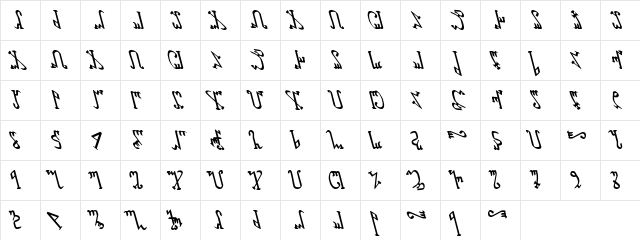
Wiccan Ways Leftalic Regular
Design Context for Wiccan Ways Leftalic Typeface
Wiccan Ways Leftalic is a composed and adaptable typeface that performs quietly and consistently across a wide range of design contexts. The dynamic lean of this cut emphasises speed and emphasis in any layout.